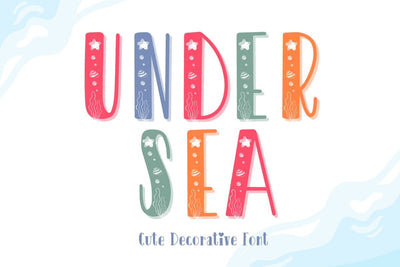
Under Sea Font - Decorative Font
Under Sea is a lovely decorative font with a summer style. With its casual charm, this font is perfect for a wide pool of design ideas. Perfect for creating a wide variety of new designs to match products such as banners, content, mugs, cards, shirts, stationery, social media posts, and more!